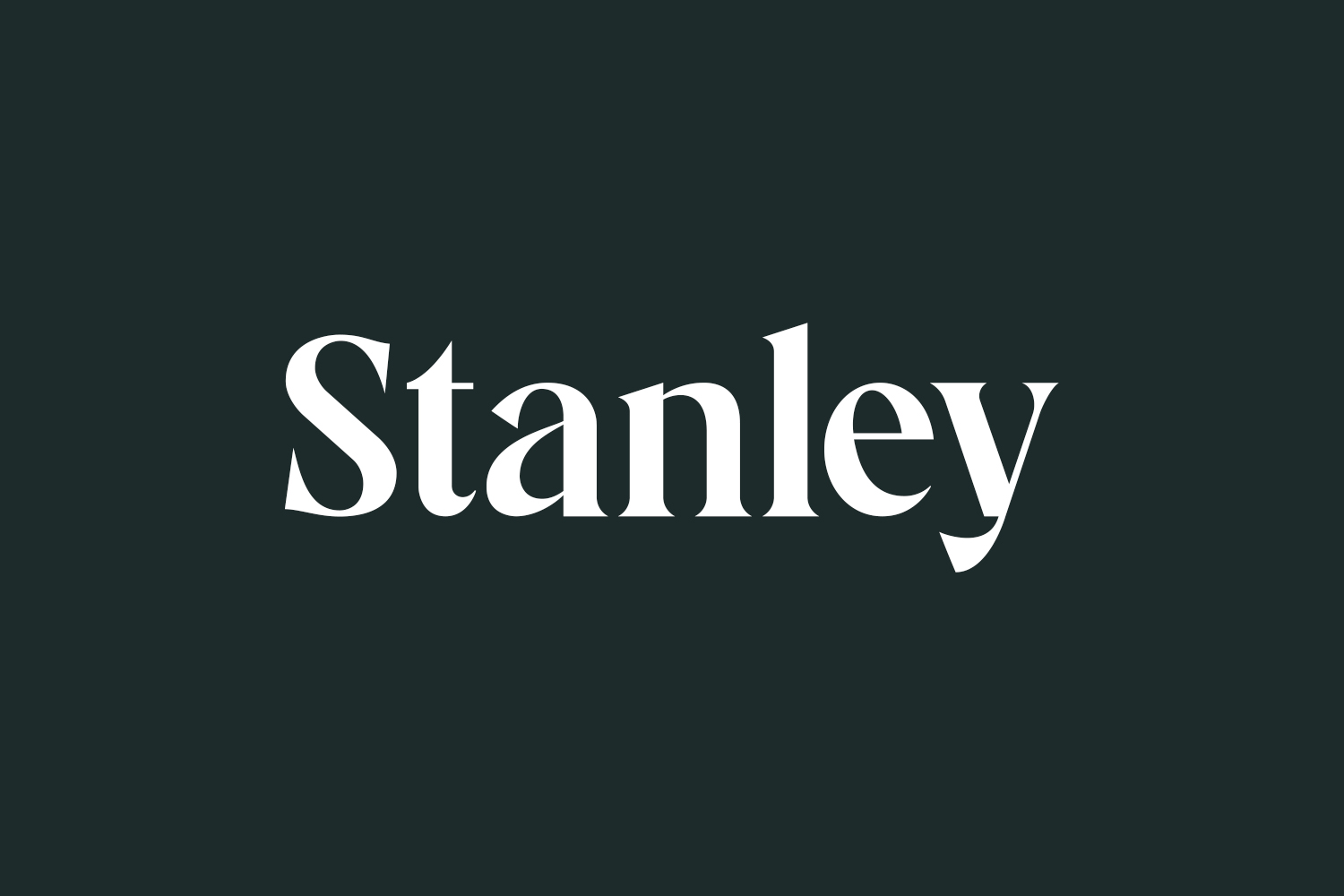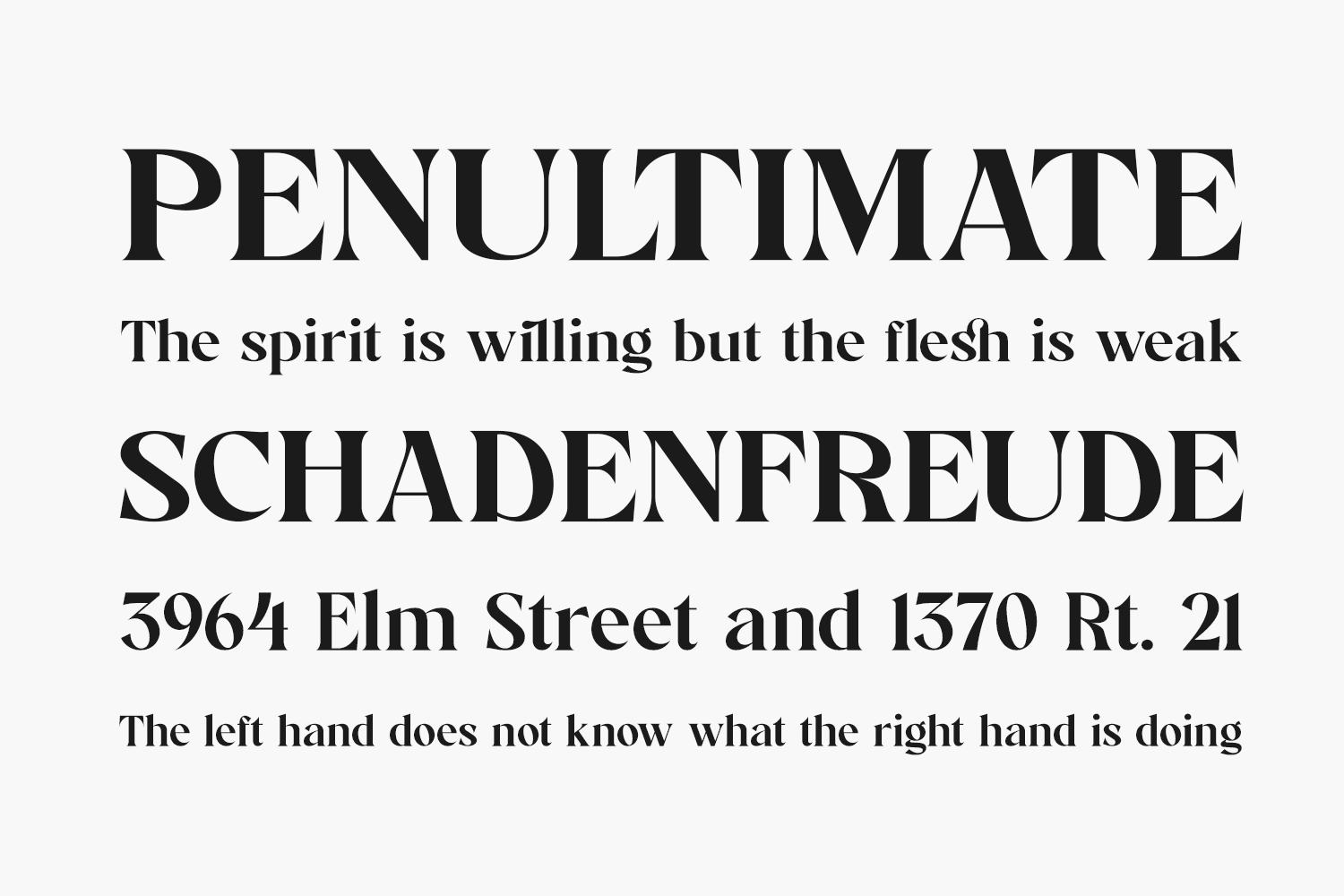
Stanley Free Font is an impeccable choice for crafting elegant and luxurious logos, book or movie titles, fashion brands, magazines, apparel, lettering, quotes, and a wide array of creative endeavors. Stanley Free Font is free for personal use only. Please purchase the full version for commercial use.